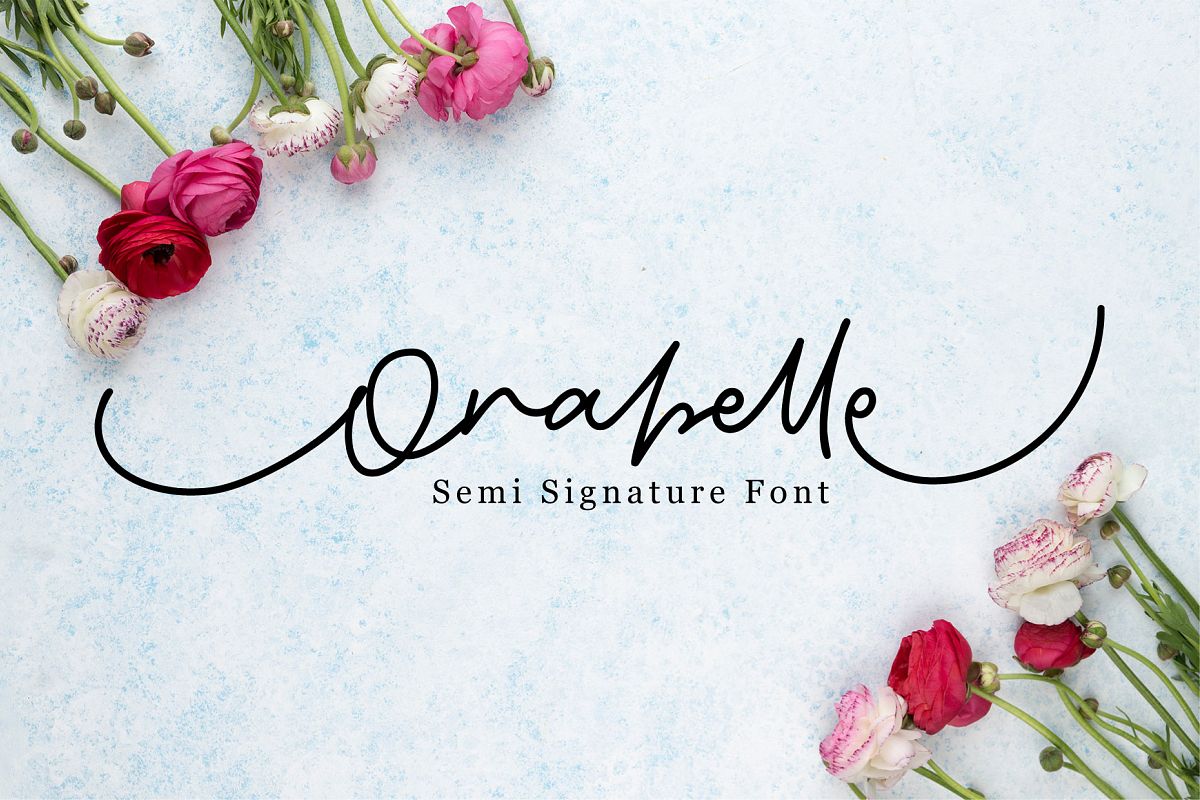
Orabelle Semi Signature Fonts
introduce this font I just uploaded, called Orabelle Semi Signature Fonts
I developed this font with the previous font,
I developed the previous font so that it was like a signature.
The font can used for
1. logo,
2. branding logo
3. packaging logo
4. video title,
5. invitations,
6. quotes,
7. cards,
8. greeting cards,
9. business cards and many more.
• Orabelle Uppercase
• Orabelle Lowecase
• Orabelle Numerals & Punctuation
• Orabelle Standart Ligature
• Orabelle Stylistic Alternates
• Orabelle Contextual Alternates
• Orabelle Swash
• Orabelle Terminal
• Orabelle Titling